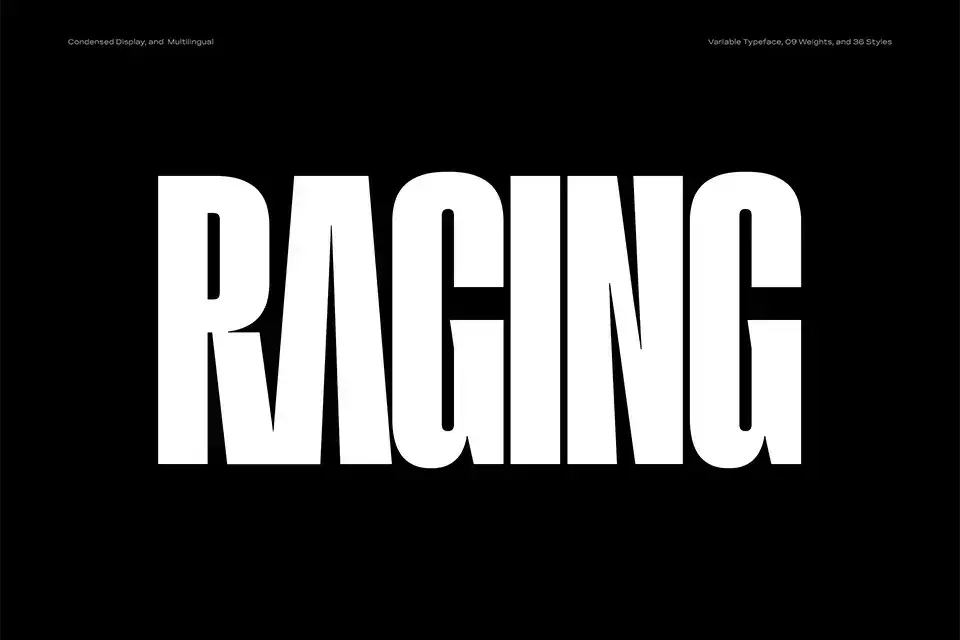
Raging Font Family
Raging Font Family is a condensed typeface offering limitless potential for creating versatile designs. It features certain characters with boldness but also provides simplified alternates for a toned-down look. The typeface comes in two optical styles: Regular and Inktraps. The Regular style ensures balanced, uniform readability, while Inktraps add a dynamic, edgy texture to the font, making it visually striking.
With 9 bold weights and 36 striking styles, including upright and italics, RAGING is your ultimate tool for commanding headlines and impactful titles, transforming ideas into bold visuals.